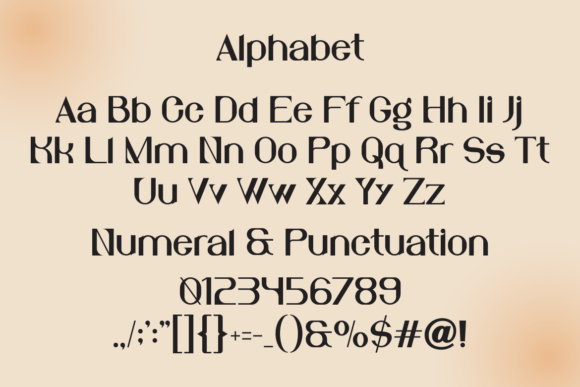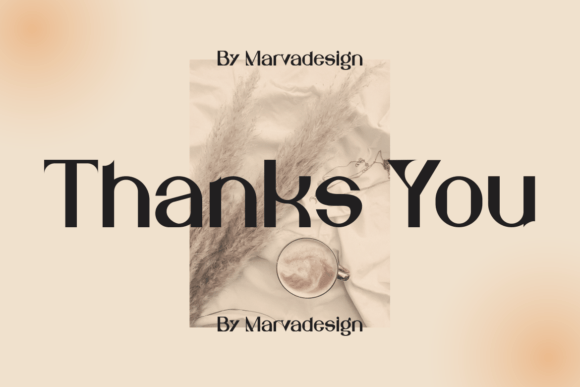
The Perfect Canvas for Your Creativity
Have you ever been in the middle of a creative project, staring at a blank page, and suddenly, an idea hits you like a wave? The excitement is palpable, and the possibilities seem endless. This is exactly what happens when you discover the right tool to bring your vision to life. For designers, the search for the perfect font can be a daunting task, but what if I told you that there’s a font that can elevate your designs and make your creative process a breeze?
Meet the Alives Font, a bold yet minimalist font that’s perfect for logos, posters, and banners. Its beautiful curves and swooshes make it a standout choice for designers who want to make a statement. With its simple yet strong design, Alives Font is an invaluable asset for any creative project. Whether you’re a seasoned designer or just starting out, this font is sure to inspire your next masterpiece.
Alives Font Key Features
- Font Family: Alives Font is a sans-serif font family that offers a modern and clean look.
- Font Size: Alives Font is available in multiple weights, ranging from 100 to 900, allowing for a wide range of typographic expressions.
- Resolution: Optimized for high-resolution displays, making it ideal for use in digital designs, such as websites, mobile apps, and presentations.
- Unique Characteristics: Alives Font features a unique blend of geometric and organic shapes, resulting in a distinctive and modern aesthetic.
- Character Count: Supports a wide range of languages, including Latin, Cyrillic, and Greek scripts, with over 1000 characters in each font weight.
Designer Review: Alives Font
Overall, I think the Alives Font has some great qualities that make it suitable for certain projects, but it also has some limitations that may hinder its versatility.
- Unique and quirky design: The Alives Font has a distinctive personality that can add a touch of whimsy to your designs.
- Good for display text: The font’s bold and playful nature makes it well-suited for headlines, titles, and other display text.
- Large character set: The font includes a wide range of characters, including punctuation and special symbols.
Limitsations ⚠️
- Limited legibility: The font’s intricate details and busy texture can make it difficult to read, especially in smaller sizes or at a distance.
- Not suitable for body text: The font’s complexity and limited legibility make it less suitable for large blocks of text, such as paragraphs.
- Lack of consistency: The font’s varying stroke widths and irregular shapes can create visual inconsistencies, especially when used in long stretches of text.
Overall, I think the Alives Font is a fun and creative option for projects that require a bold, eye-catching display font. However, it may not be the best choice for more straightforward or serious designs that require clear, readable text.
Getting the Most Out of Alives Font
For optimal results, use Alives Font in conjunction with bold, colorful designs and playful graphics. Experiment with different font styles and sizes to create visually appealing and engaging content.
Alives Font is ideal for creative and youthful projects, such as:
– Event invitations
– Blog posts and articles
– Children’s book illustrations